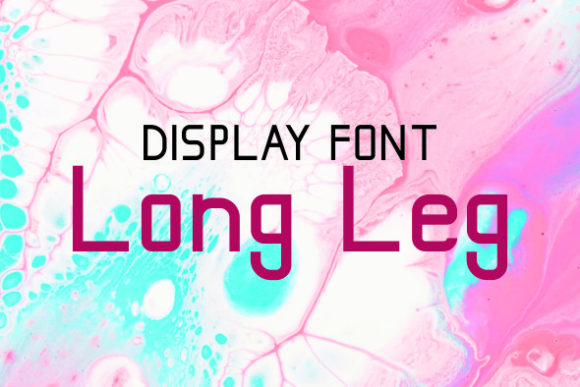
In a world of mediocrity, where fonts blend into the background like whispers in the wind, there exists a font that dares to stand tall and command attention - Long Leg Font. This display font is a captivating fusion of boldness and modernity, a beacon of innovation that will elevate your designs to dizzying heights.
Long Leg Font is a visual masterpiece, meticulously crafted to leave an indelible mark on the hearts and minds of your audience. Its striking characters exude an air of confidence and power, demanding attention from every corner of the page. Imagine your words dancing across the screen, each letter a testament to your unwavering individuality, a reflection of your audacious spirit.
With its towering height and unwavering stance, Long Leg Font is the perfect choice for those who seek to make a statement, to break free from the chains of conformity. This font is an open invitation to explore the boundaries of creativity, to push the limits of what's possible. Let your imagination soar as you witness your designs transform into captivating works of art, imbued with an aura of boldness and distinction.
Unleash the full potential of Long Leg Font in your logos, posters, social media graphics, and website designs. Its versatility knows no bounds, adapting seamlessly to a myriad of projects and industries. Whether you're crafting a brand identity, promoting an event, or simply sharing your thoughts with the world, Long Leg Font will amplify your message, leaving an unforgettable impression on all who encounter it.
Join the ranks of the creative elite as you embrace Long Leg Font, the ultimate symbol of innovation and audacity. Let your designs speak volumes, captivating audiences with every stroke, every curve, every carefully crafted detail. Experience the transformative power of a font that refuses to blend in, a font that will forever change the way you communicate your ideas.